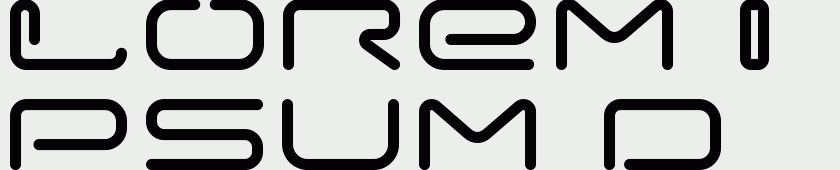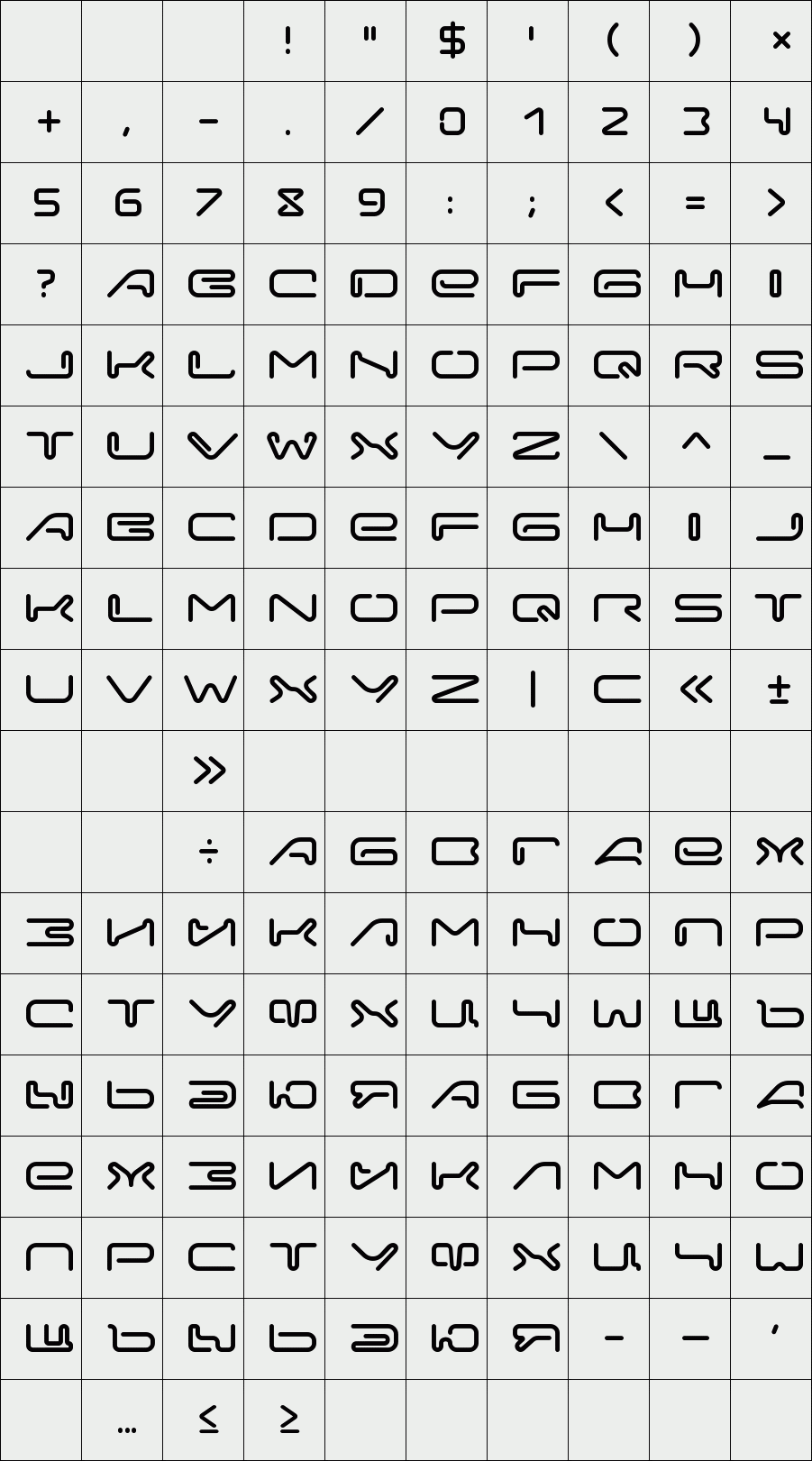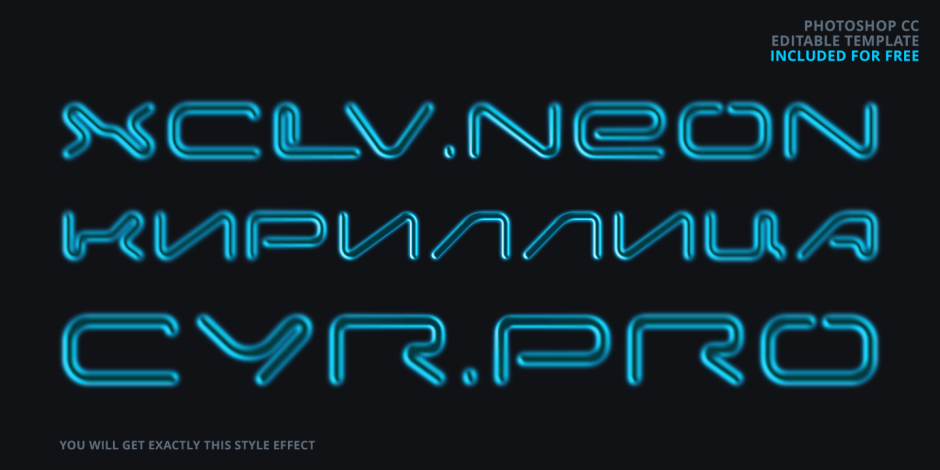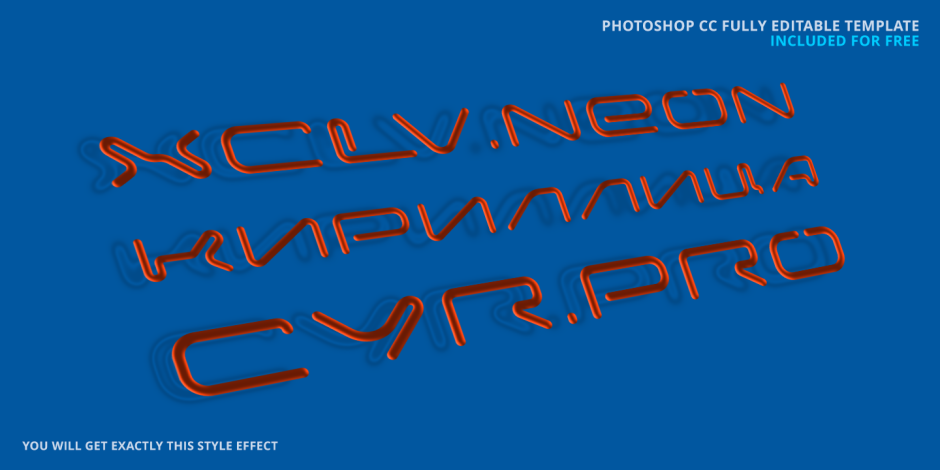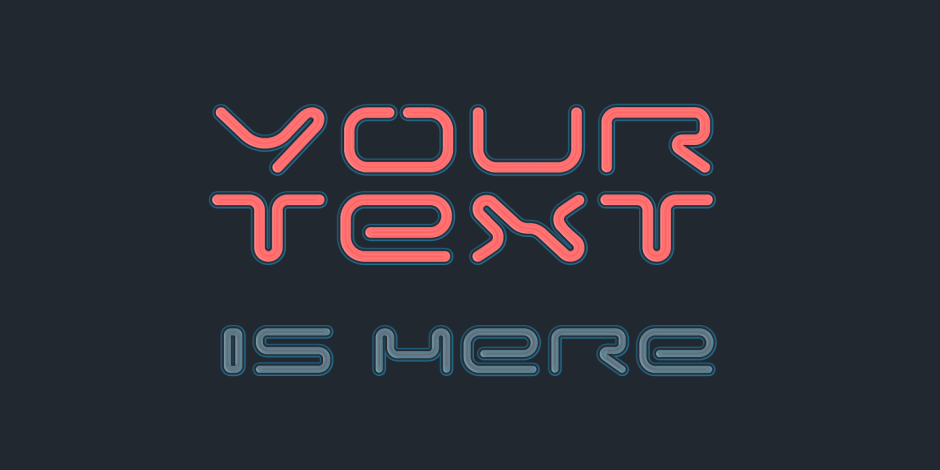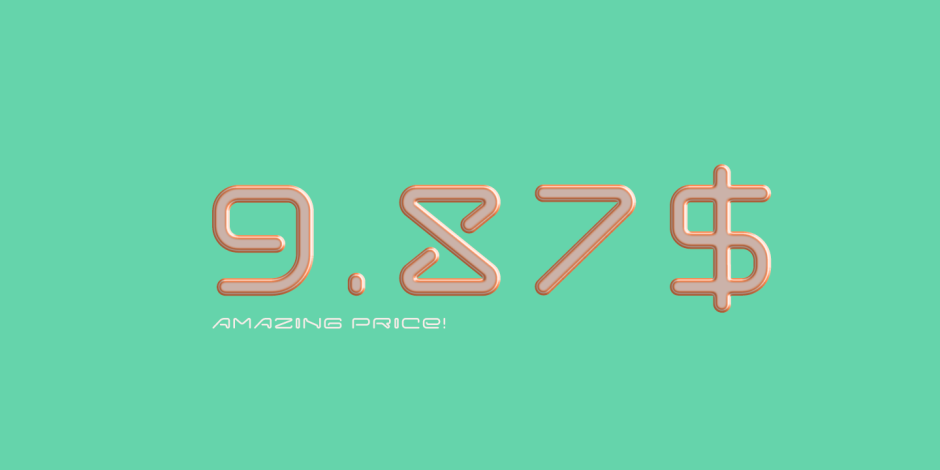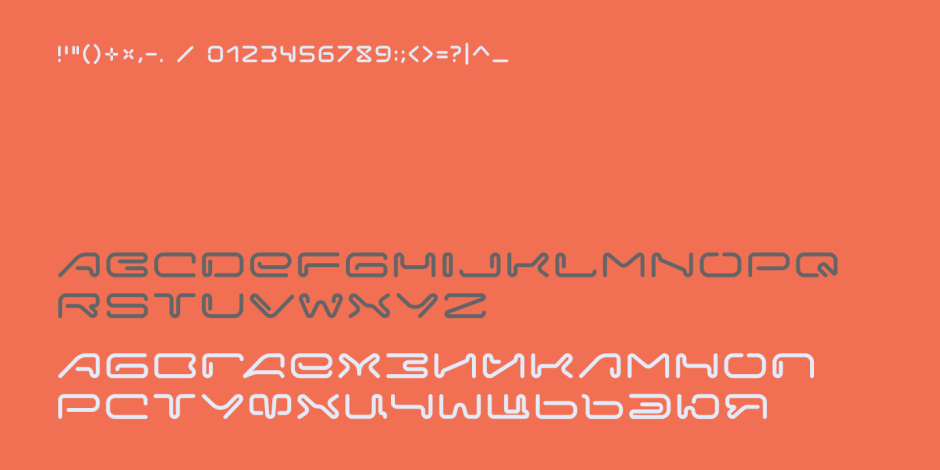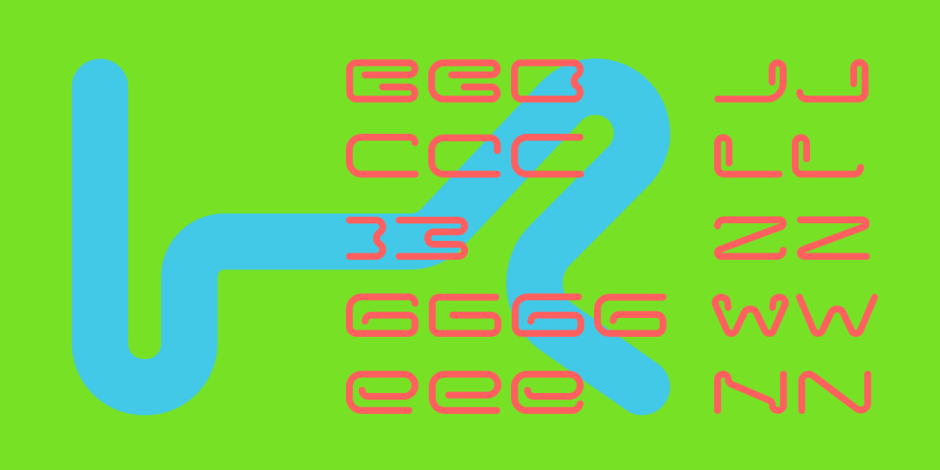
Xclv.Neon Pro Cyrillic
Specially created for high-budget Hollywood blockbusters by well-known ukrainian Ideas Millionaire K.
Professional Cyrillic version.
Future Neon Signs.
Professional Cyrillic version.
Future Neon Signs.
Designer: VIKTOR KONOVALOV